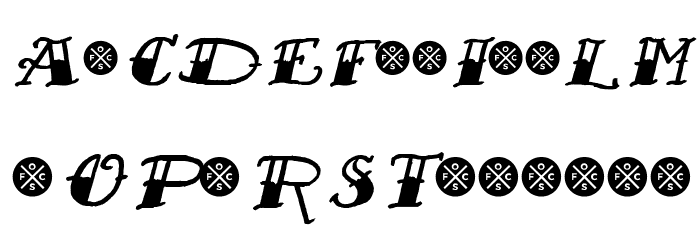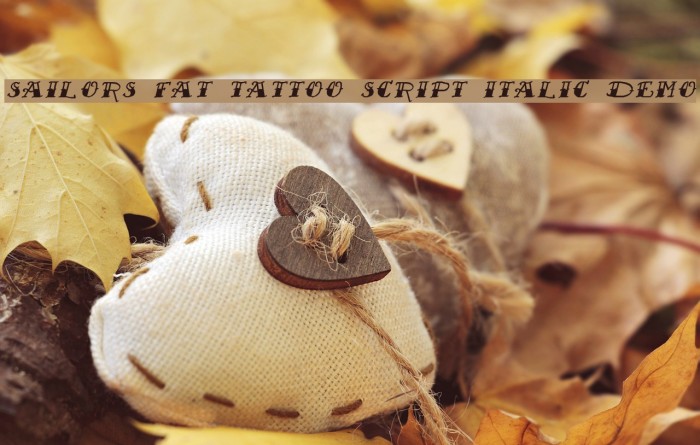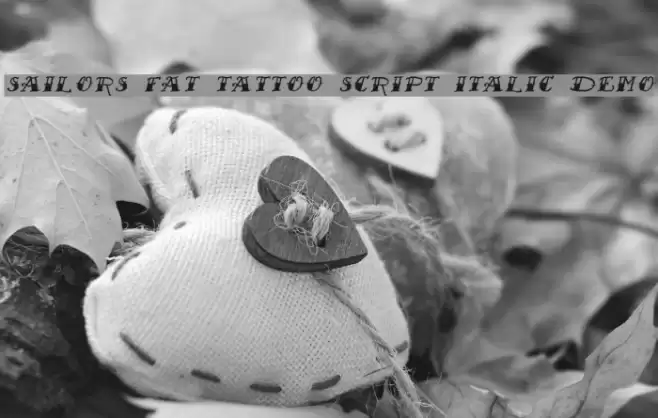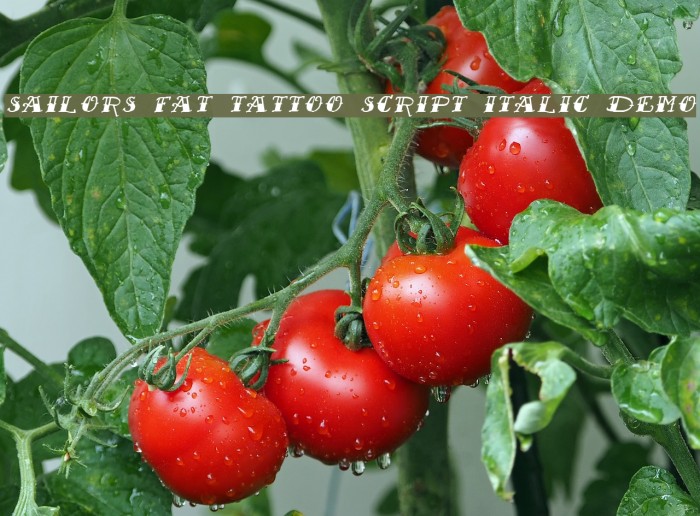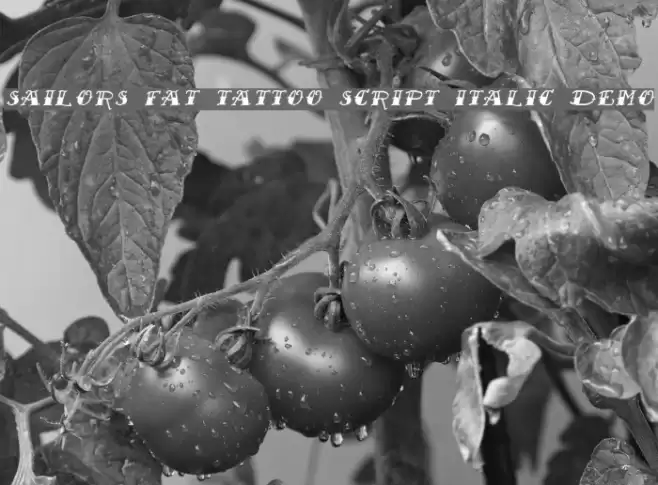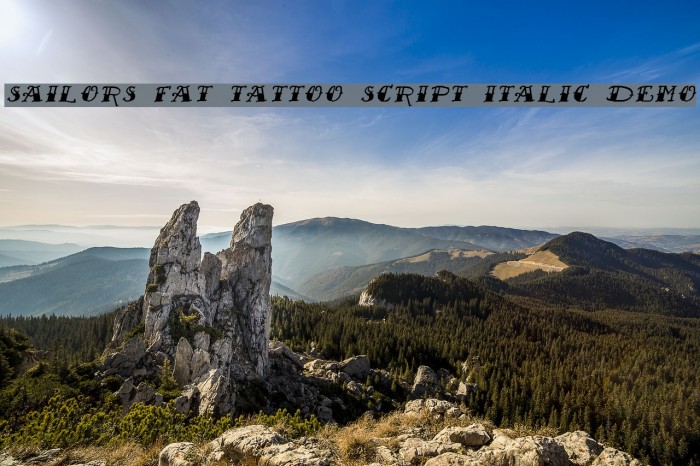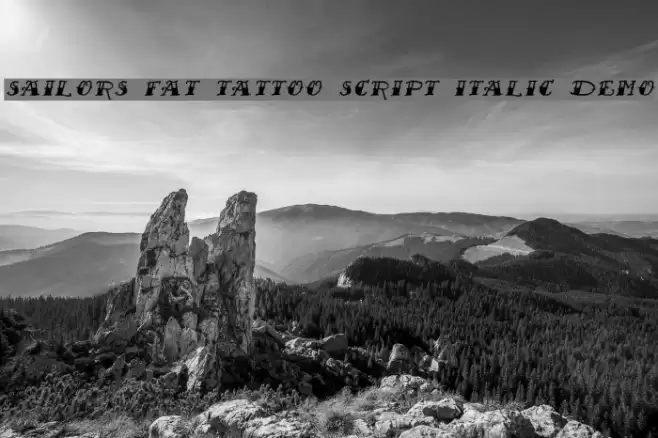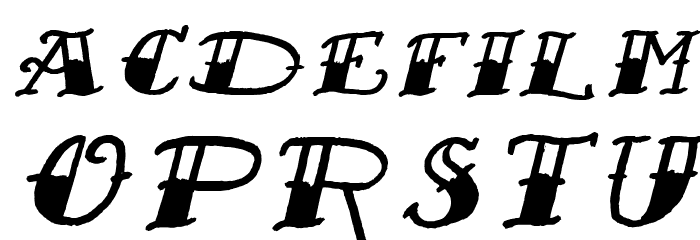
Sailor's Fat Tattoo Script Italic Demo Font
| Gesamtstil | Vintage, Decorative |
| Anwendungsfall | Logos, Headlines, Posters |
| Vorgeschlagene Projekte | Ideal for tattoo designs, vintage posters, branding for nautical-themed products, and decorative headlines. |